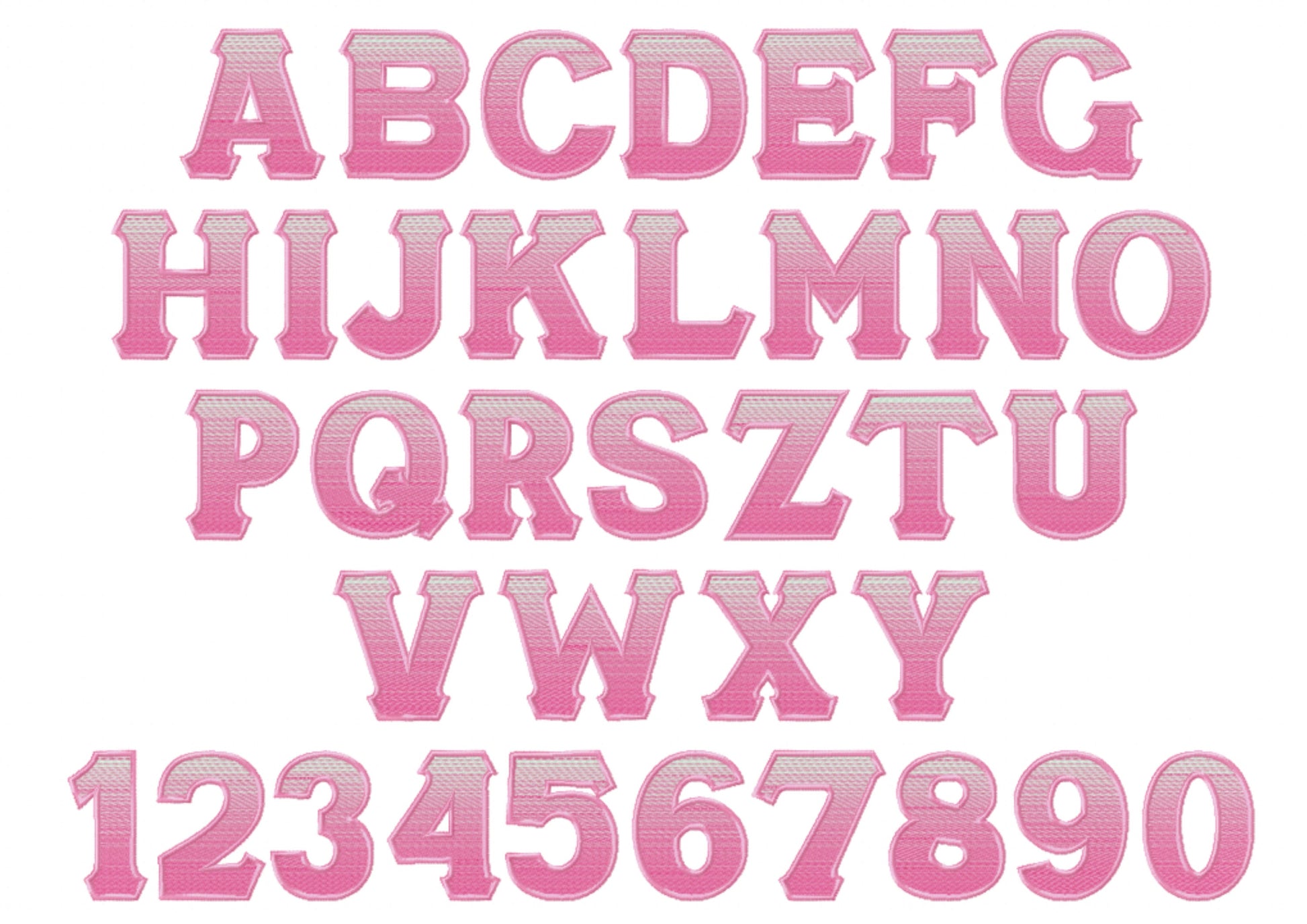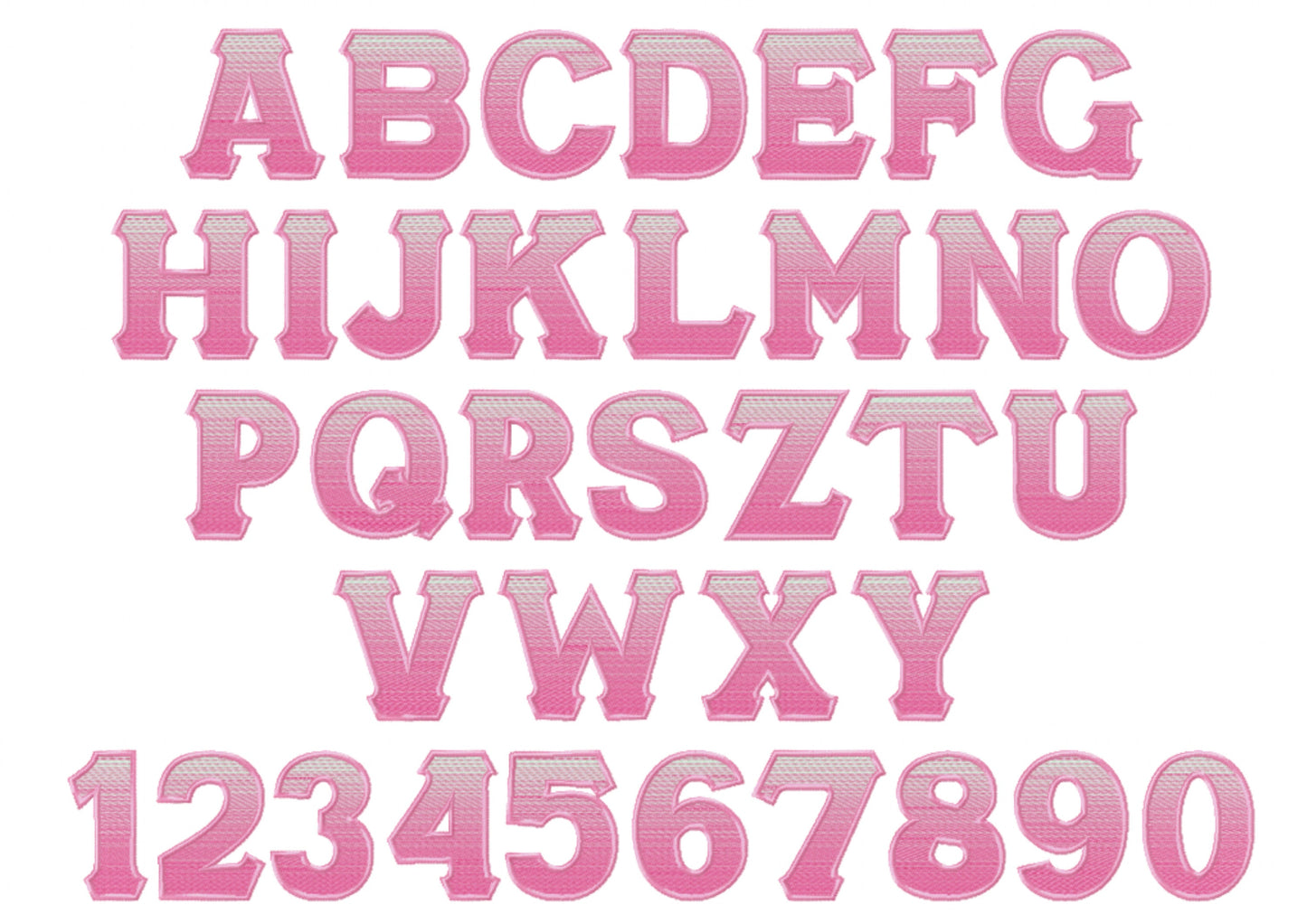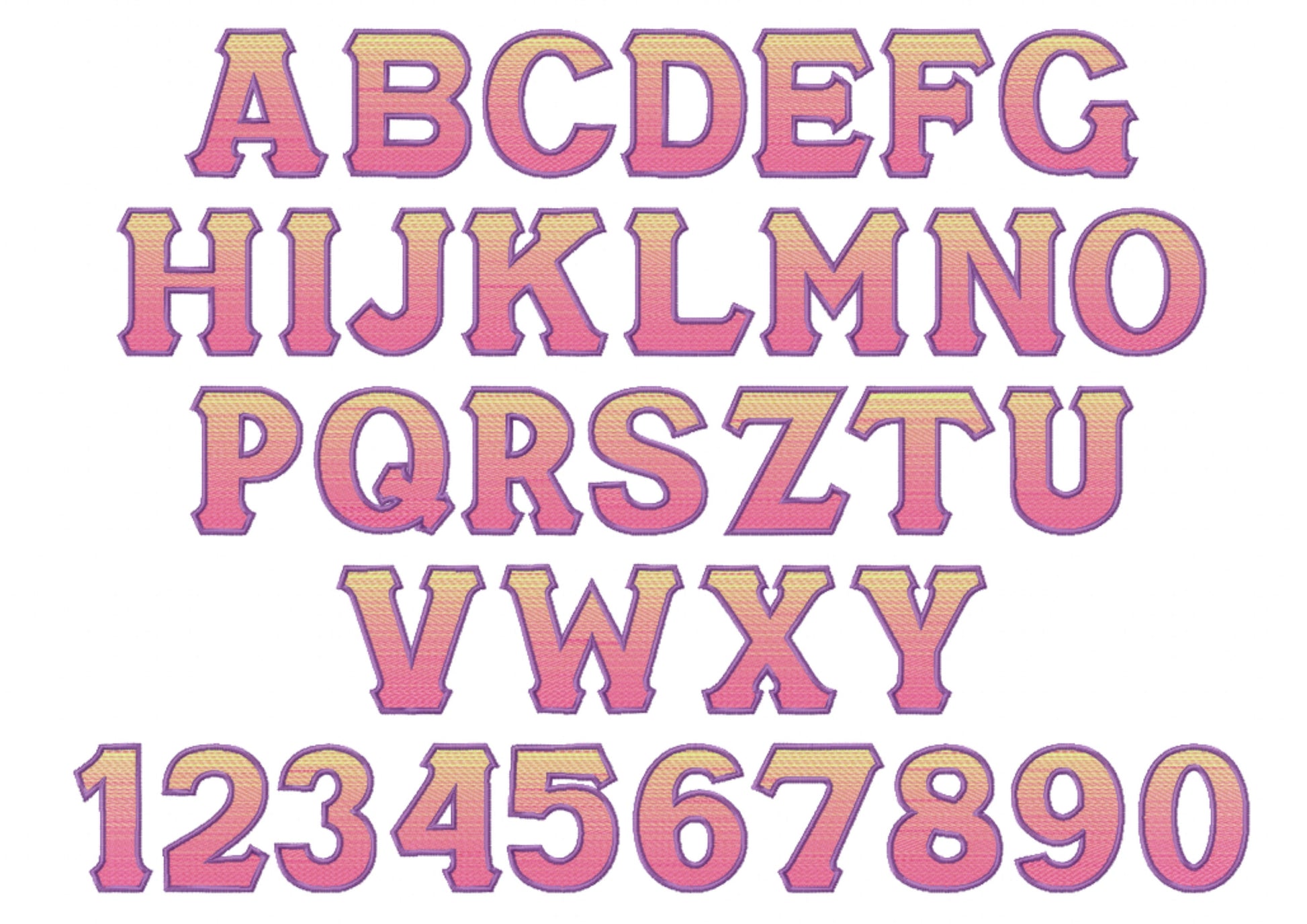
Or click to open the linkAn iridescent gradient font stitched with two ordinary thread colors and an outline, no special thread needed. Great for graduation, sorority and fraternity shirts, names and monograms.
Uppercase letters A to Z and numbers 0 to 9 in six sizes: 2.5, 3, 3.5, 4, 4.5 and 5 inches. One side of each letter is stitched in one color and the other side in a second color, then finished with an outline.